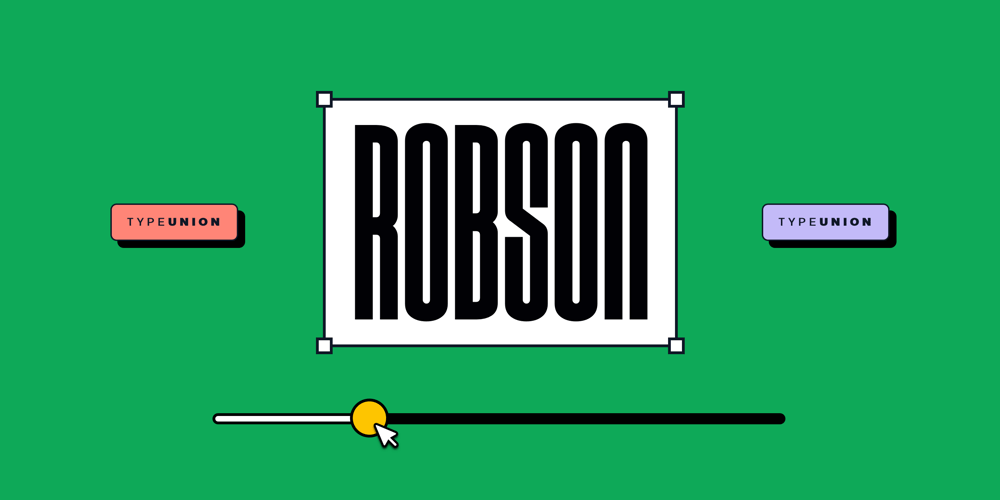
Robson Font Family was designed by Dan Jones and published by TypeUnion. Robson contains 9 styles and family package options. Robson is a fluid, condensed, uppercase font made up of eight weights, as well as a variable, that will provide instant visual impact to your projects. The font is made up of 486 glyphs which features extensive language support & stylistic alternates to give your designs the versatility they require.The font has a retro edge to it by using rounded structures on the A, M, N, W and Y glyphs that are reminiscent of posters and promos from the 70s and 80s. The ultra tight thin weight is made to be used at super sizes to bring a focal point to your designs. Robson is meant to be seen big (well, he’s a bit of a show-off)Robson is perfect for your digital, print or branding projects. Or, for a poster on your fridge that says “You rock”.